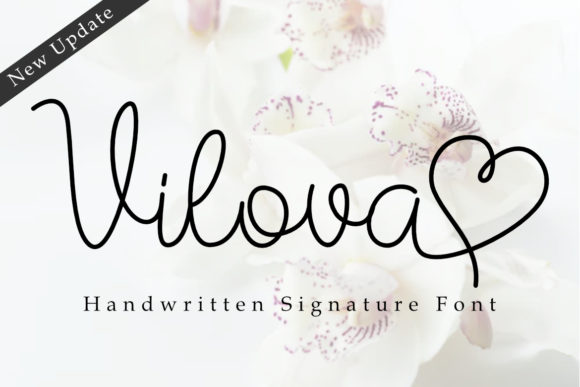
Welcome to the world of Vilova Font, an enchanting journey through the realm of exquisite typography. This captivating script font, crafted by the visionary designers at Madatype Studio, is a symphony of elegance and charm. Let its flowing curves and playful heart alternates dance across your designs, evoking a sense of joy and timeless beauty.
Immerse yourself in the limitless possibilities of Vilova. Embrace its delicate strokes and graceful swirls, and watch as your words transform into works of art. Whether you seek to craft stunning product packaging, create an unforgettable branding project, or add a touch of whimsy to your social media presence, Vilova will elevate your designs to new heights.
Picture the allure of your products adorned with Vilova's enchanting characters. Its inherent charm will captivate your audience, drawing them in and leaving a lasting impression. Your brand will radiate a sense of sophistication and creativity, setting you apart from the ordinary.
With Vilova, you'll discover a world of versatility. Its enchanting style lends itself effortlessly to a myriad of applications. From the delicate lines of wedding invitations to the bold statements of magazine covers, Vilova adapts seamlessly, adding a touch of magic to every project.
Let Vilova be your canvas, and let your imagination soar. Its flowing strokes will guide your hand, transforming mere words into heartfelt expressions. Each letter, lovingly crafted, will carry your message with elegance and grace. Your audience will be captivated by the sheer beauty of your designs, drawn in by the allure of Vilova's enchanting script.
Step into the realm of Vilova Font today, and embark on a creative odyssey that will leave you breathless. Discover the boundless potential of this exquisite typeface and unlock the true beauty of your designs. Vilova awaits you, ready to weave its enchanting spell over your creations.